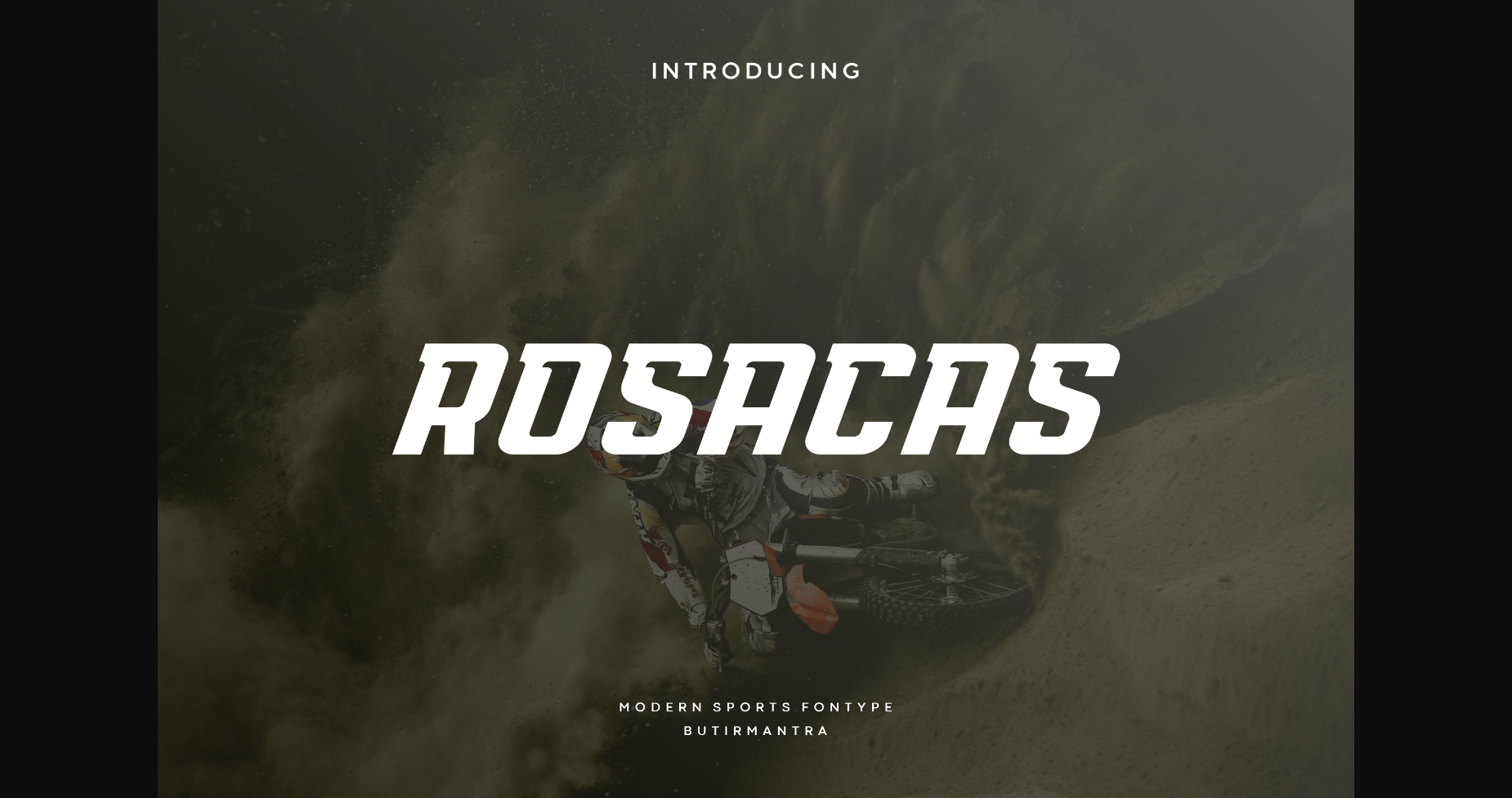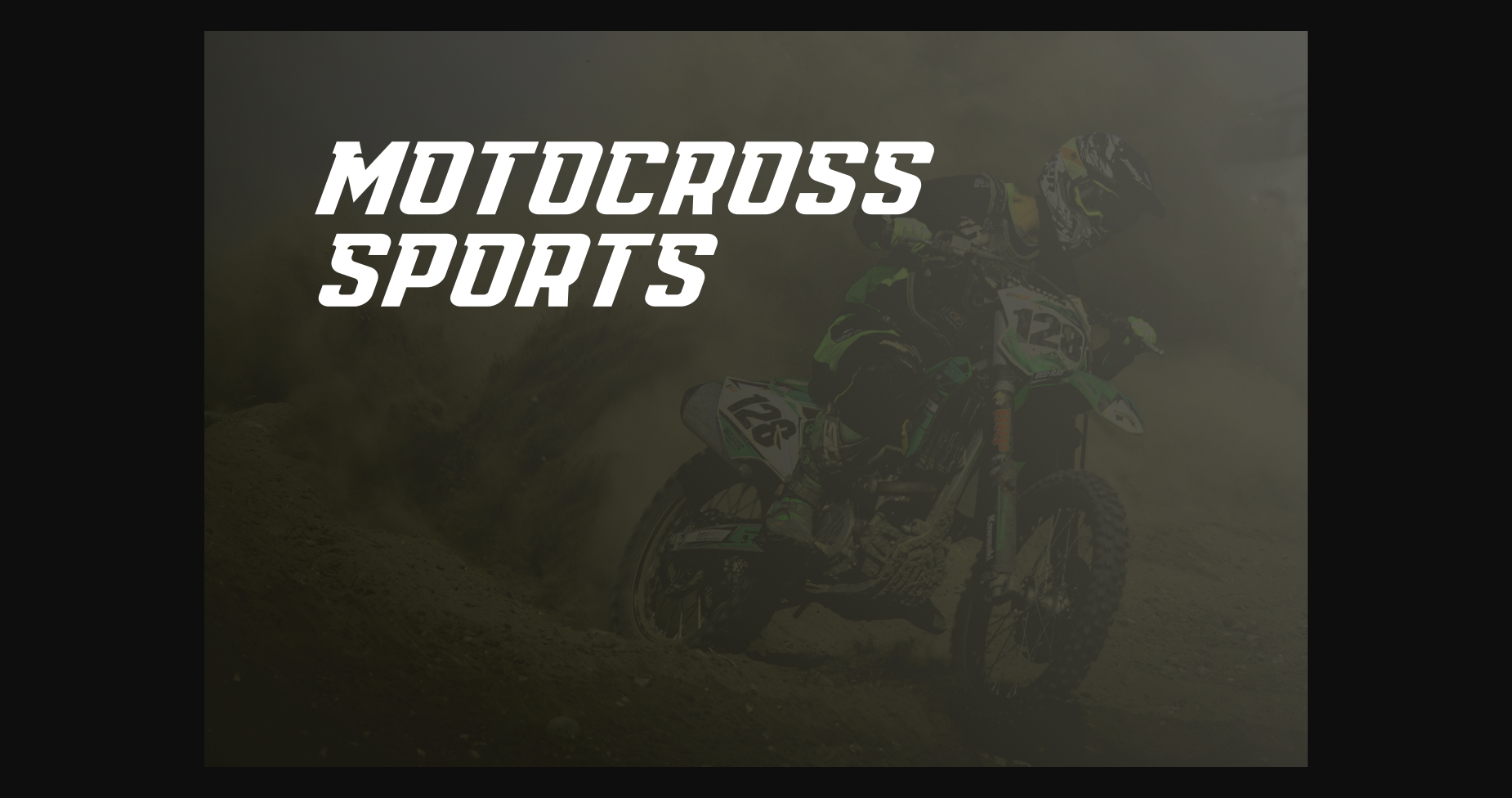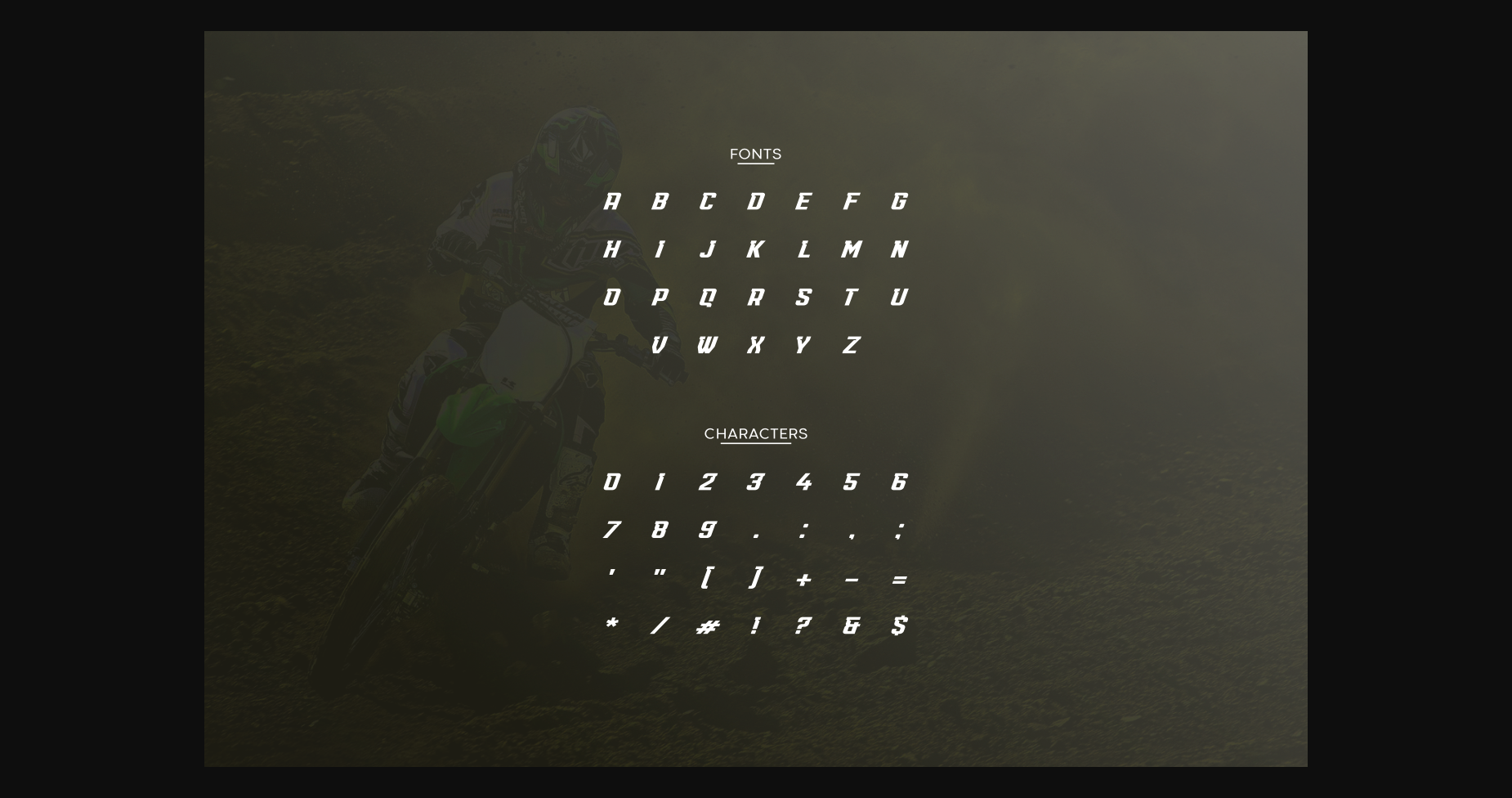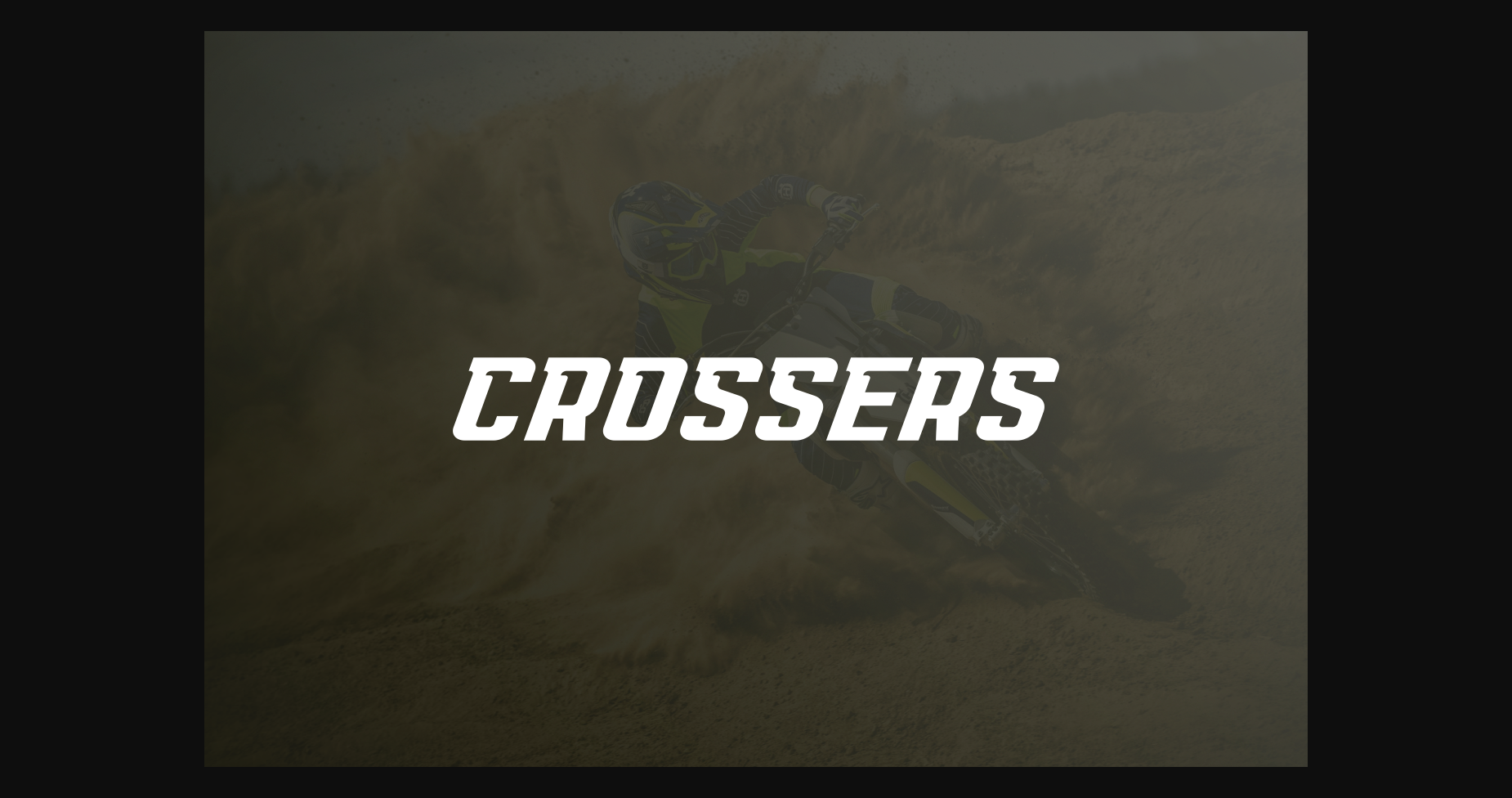
HomeSans Serif FontsRosacas Font Sans Serif Fonts Rosacas Font FacebookXPinterestWhatsApp 1 of 6 ... Rosacas Font Poster 2... Rosacas Font Poster 3... Rosacas Font Poster 4... Rosacas Font Poster 5... Rosacas Font Poster 6... About Rosacas Font Rosacas is a modern, sports-themed sans serif font. This font would be ideal for web design, business cards, or just about anything else that requires a unique touch. DOWNLOAD NOW People also explored Sunday Font BD AsciiMax Inspiring Font Christmas Snowing Font Prisma Malicasa Font Autumn in November Font Broklyn Font Duo With Summer Font 405 0 TagsRosacasRosacas Font Previous articleCruiser FontNext articleCoreso Font LEAVE A REPLY Cancel reply Comment: Please enter your comment! Name:* Please enter your name here Email:* You have entered an incorrect email address! Please enter your email address here Website: Save my name, email, and website in this browser for the next time I comment. Personal Use Free Kaylafiz Personal Use Free Read more about this font Wildwest Personal Use Free Read more about this font UseYourImagination Personal Use Free Read more about this font Farmgarden Personal Use Free Read more about this font BLOG 5 Fonts That Will Dominate Design Trends in 2026 5 Fonts for 2026 That Will Dominate Design Trends Typography plays a critical role in visual communication, and as we look ahead to 2026, it’s... Elegant Wedding Invitation Fonts – Handwritten & Script Fonts Transform Your Website: Elevate Your Typography with 7 Best Web Font Generators How to Install and Use Fonts on Windows, macOS, and Web Projects